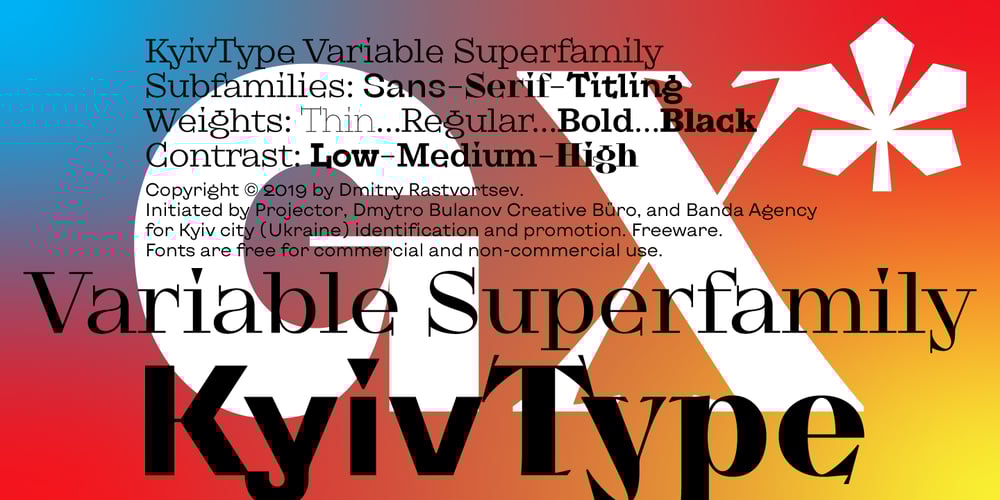
KyivType Variable Font Family was designed by Dmitry Rastvortsev and published by Dmitry Rastvortsev. KyivType Variable contains 3 styles and family package options. KyivType superfamily, consisting of three subfamilies: Sans, Serif and Titling. Fonts have variability in weight and contrast. There are also alternates.Initiated by Projector, Dmytro Bulanov Creative Büro, and Banda Agency for Kyiv city (Ukraine) identification and promotion. Freeware. Fonts are free for commercial and non-commercial use. More at Behance